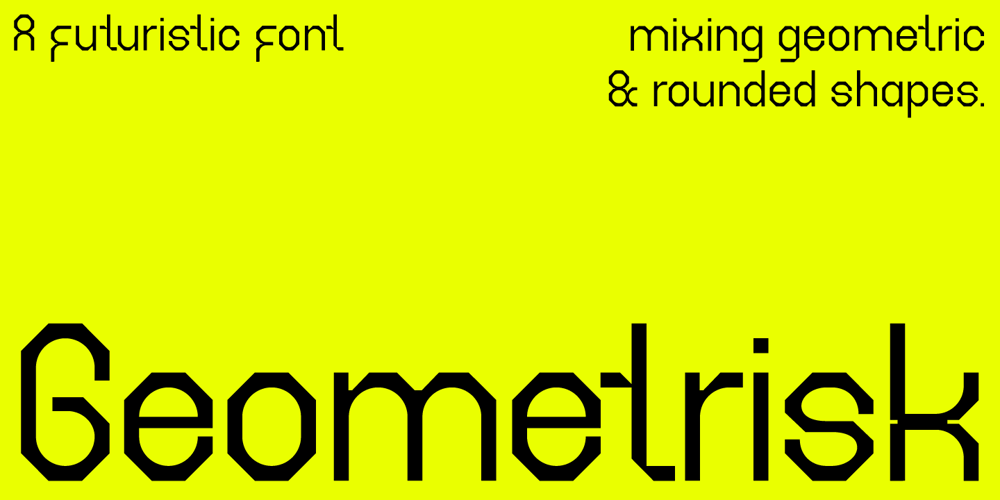
Geometrisk
Geometrisk font
Geometrisk Font Family was designed by Daniel Brokstad and published by Daniel Brokstad. Geometrisk contains 10 styles and family package options. Geometrisk is a modernist futuristic font combining geometrical outer shapes with rounded inner curves, to create an interesting contrast. The funky italics are created through an offset of the regular type, giving it an almost pixelated look. Well fitting within a cyberpunk world, and an interesting pairing with the standard font.Five different weight and italics of each. Multi-language support. Stylistic alternatives. Designed for headline use.